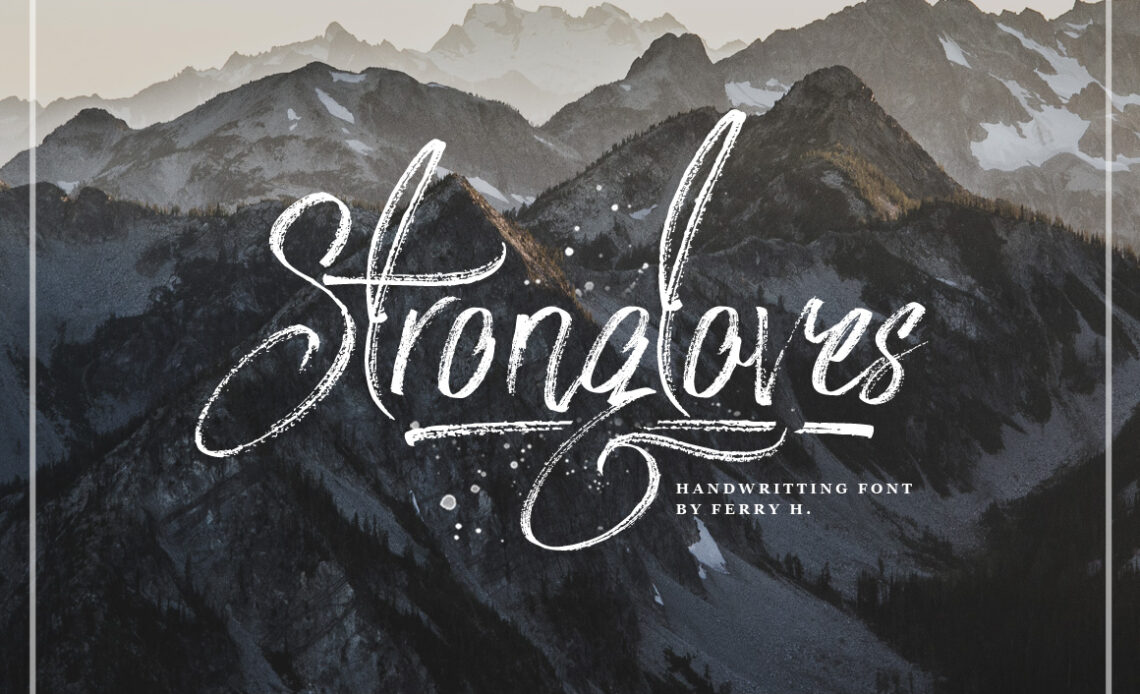
Unleash your creativity with Strongloves Font, a captivating script font that adds a touch of urban flair and vintage charm to your designs. Inspired by the bustling city streets and retro signage, Strongloves is a unique and expressive font that will make your words stand out.
With its rough edges and dynamic flow, Strongloves exudes a sense of authenticity and personality. It's perfect for creating eye-catching logos, posters, social media graphics, website headers, and any other design project that demands attention.
Whether you're a seasoned designer or just starting out, Strongloves Font is incredibly versatile and easy to use. Its natural, textured style blends seamlessly with various design aesthetics, from modern and minimalist to rustic and bohemian.
Transport your audience to a world of creativity and intrigue with Strongloves Font. Its bold strokes and playful curves will capture their attention and leave a lasting impression.